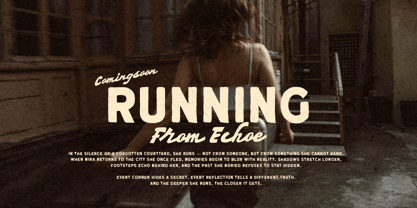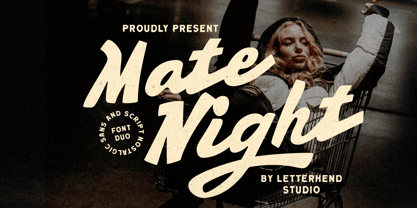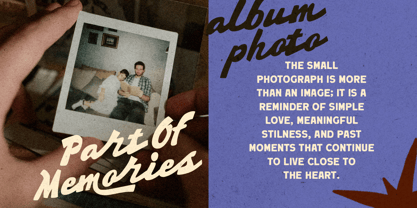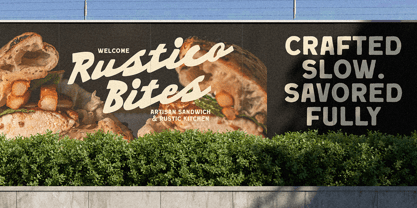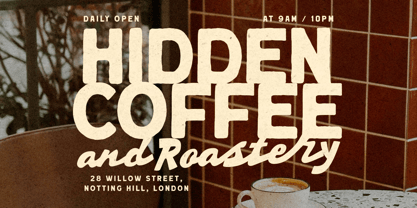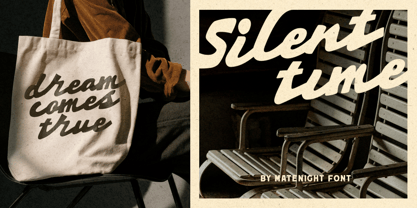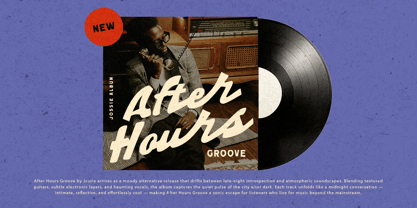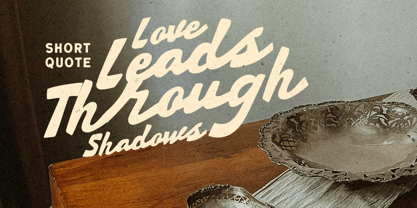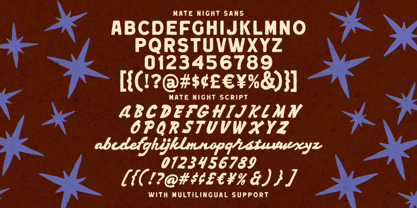
Mate Night
by Letterhend
The Mate Night Font Family was designed by Hendry Juanda and published by Letterhend. Mate Night contains 2 styles and family package options. More about this family
Mate Night a nostalgic script and sans font duo that brings a bold cinematic vibe with a touch of retro adventure. The script flows with smooth, expressive strokes that feel lively and confident, while the sturdy sans adds a clean, classic contrast—perfect for creating eye-catching titles and stylish layouts. Features : Uppercase & lowercase Numbers and punctuation Alternates & Ligatures Multilingual Support PUA encoded
Designers: Hendry Juanda
Foundry: Letterhend